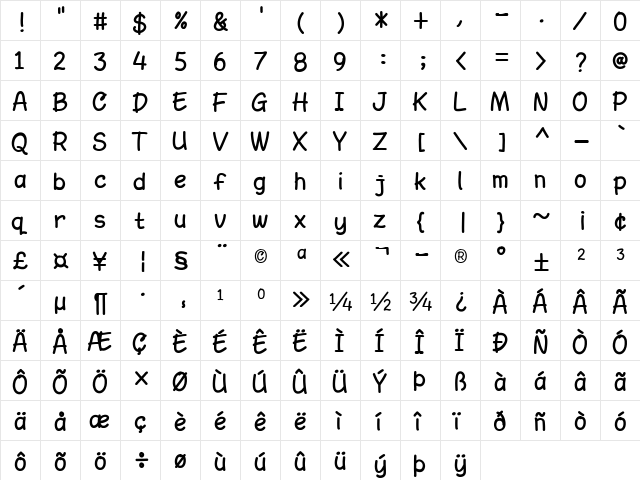
AmarillReg Regular
Design Context for AmarillReg Typeface
AmarillReg offers clean, dependable letterforms without strong stylistic allegiance, making it a practical choice for designers who need flexibility.
Pro Tip: Use AmarillReg in both headline and body roles to test its range before committing to a single application.